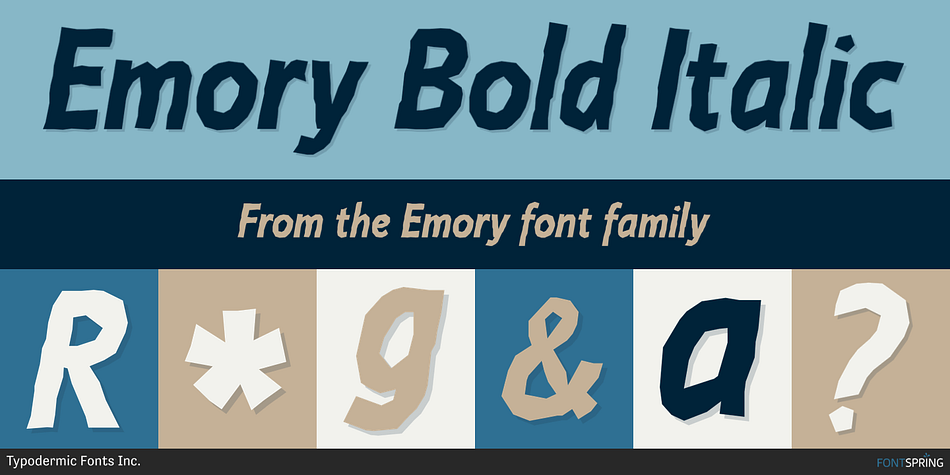
Emory Bold Italic
Emory is a grunge font family. This typeface has four styles and was published by Typodermic Fonts Inc.
Imagine the tactile sensation of sandpaper translated into typography. That’s Emory—a typeface that doesn’t just communicate, it grabs hold.
Emory is for designers who want their words to have presence. Each character embodies the coarse, unyielding texture of grit, ensuring every word stands out with uncompromising clarity. Dig deeper, and you’ll uncover bespoke OpenType combos, adding an extra layer of tactile intrigue to your text. With four distinct cuts—Regular, Italic, Bold, and Bold-Italic—Emory offers a range of textural intensities. From the whisper of sandpaper’s kiss in Regular to the roar of industrial grit in Bold, Emory delivers impact in any weight.
This typeface’s gritty charm spans linguistic borders, speaking volumes across a vast array of Latin-based European languages. Whether you’re crafting a rugged global brand identity or adding texture to a multilingual publication, Emory ensures your message retains its raw edge. In a world smoothed over by digital perfection, Emory stands as a testament to the power of imperfection. It’s more than a typeface—it’s a statement about embracing the raw and real in an increasingly virtual world.
When your design calls for something beyond the ordinary, turn to Emory. Let your typography break free from smoothness and embrace the power of grit. With Emory, your message won’t just be seen—it’ll be felt.